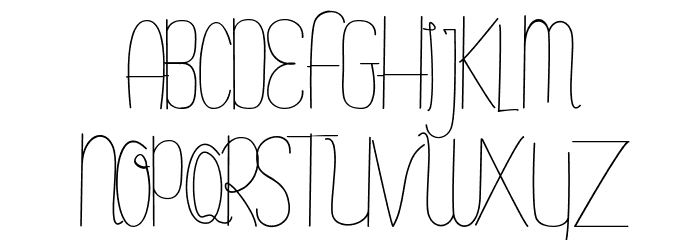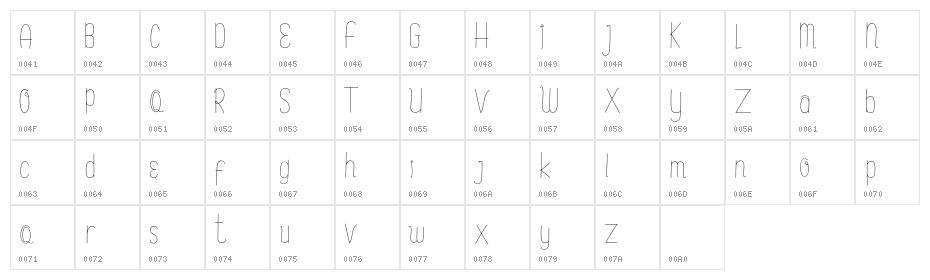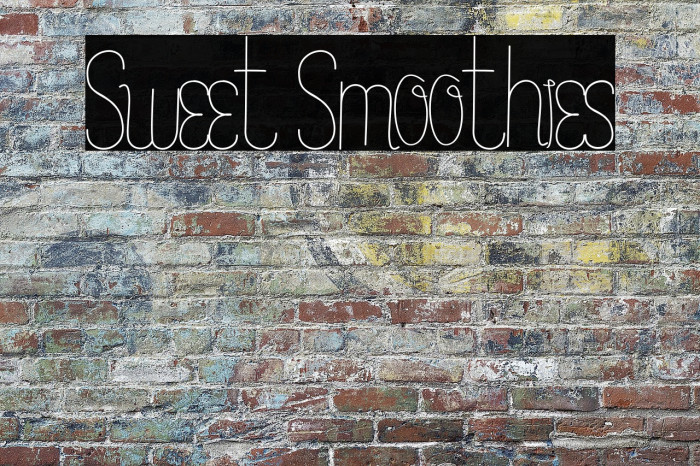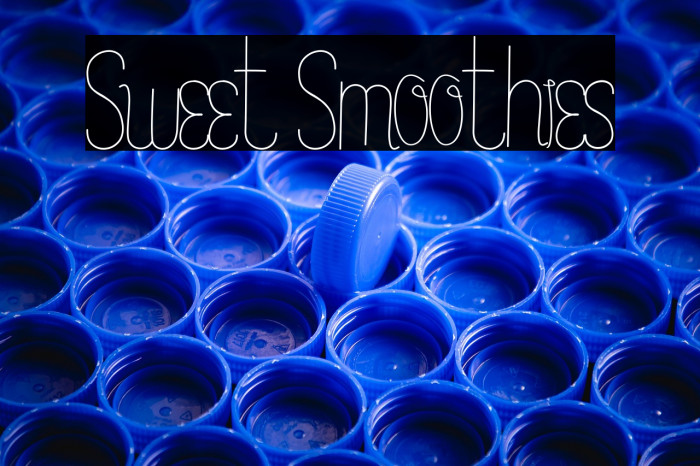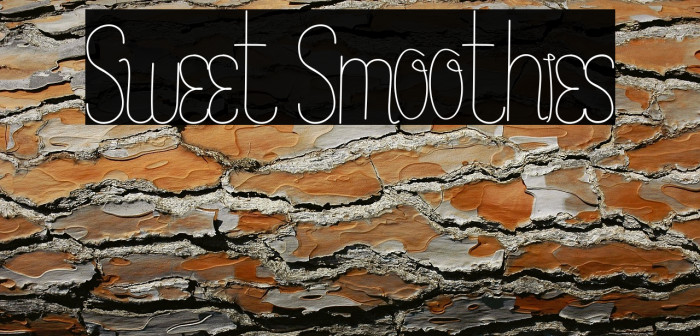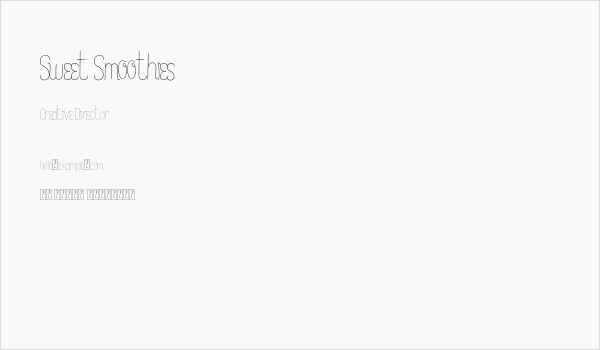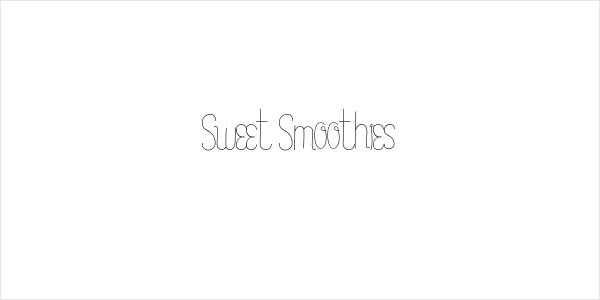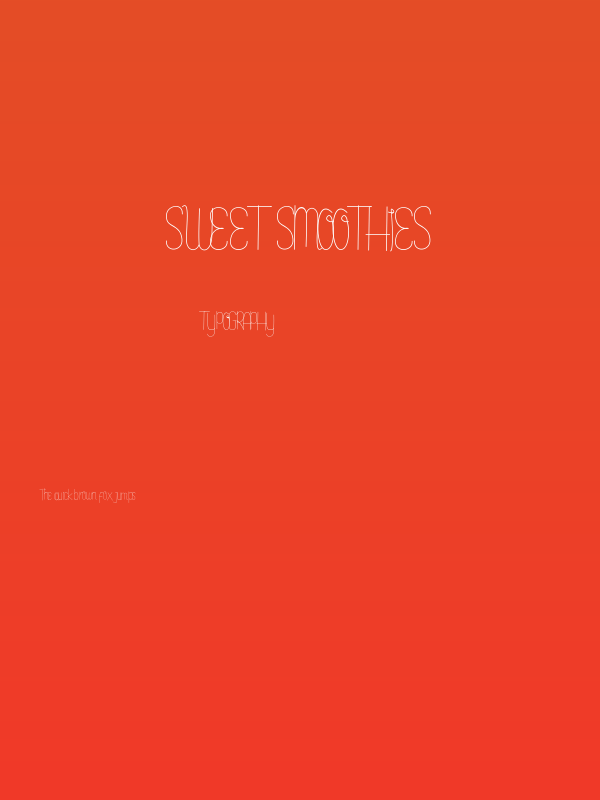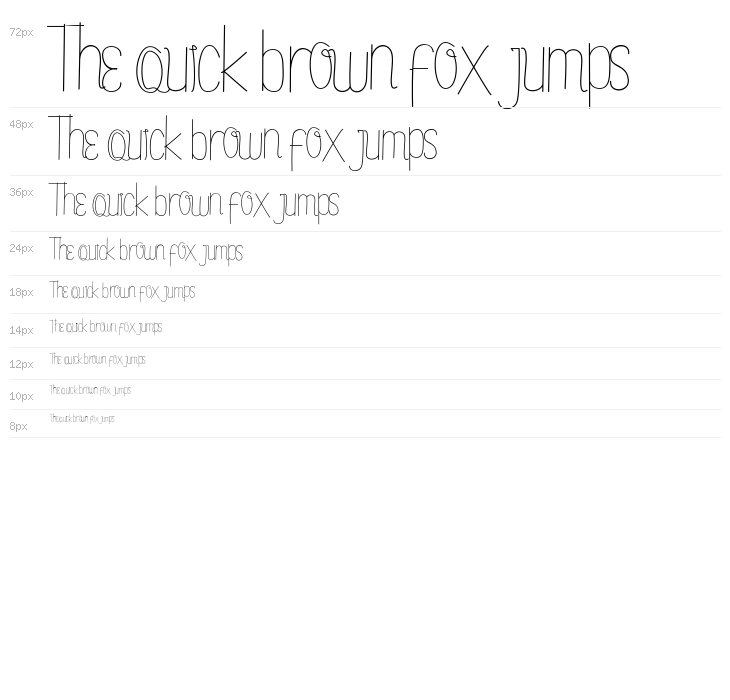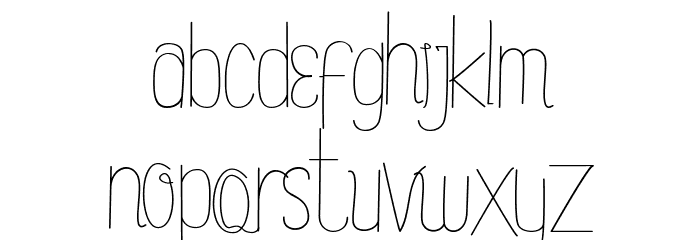
Sweet Smoothies Font
Sweet Smoothies Description
This font features a whimsical and playful design with elongated, thin strokes that give it a delicate and airy appearance. The characters are uniquely crafted with a blend of straight lines and subtle curves, creating a sense of movement and fluidity. The uppercase and lowercase letters maintain a consistent style, with some characters exhibiting slight variations in height and width, adding to its charm. The font's overall look is modern yet retains a touch of elegance, making it suitable for creative and artistic projects. Its distinctive style is eye-catching and can add a unique flair to any design.
| Proposed Projects | Ideal for creative projects such as invitations, greeting cards, branding, and artistic posters. |